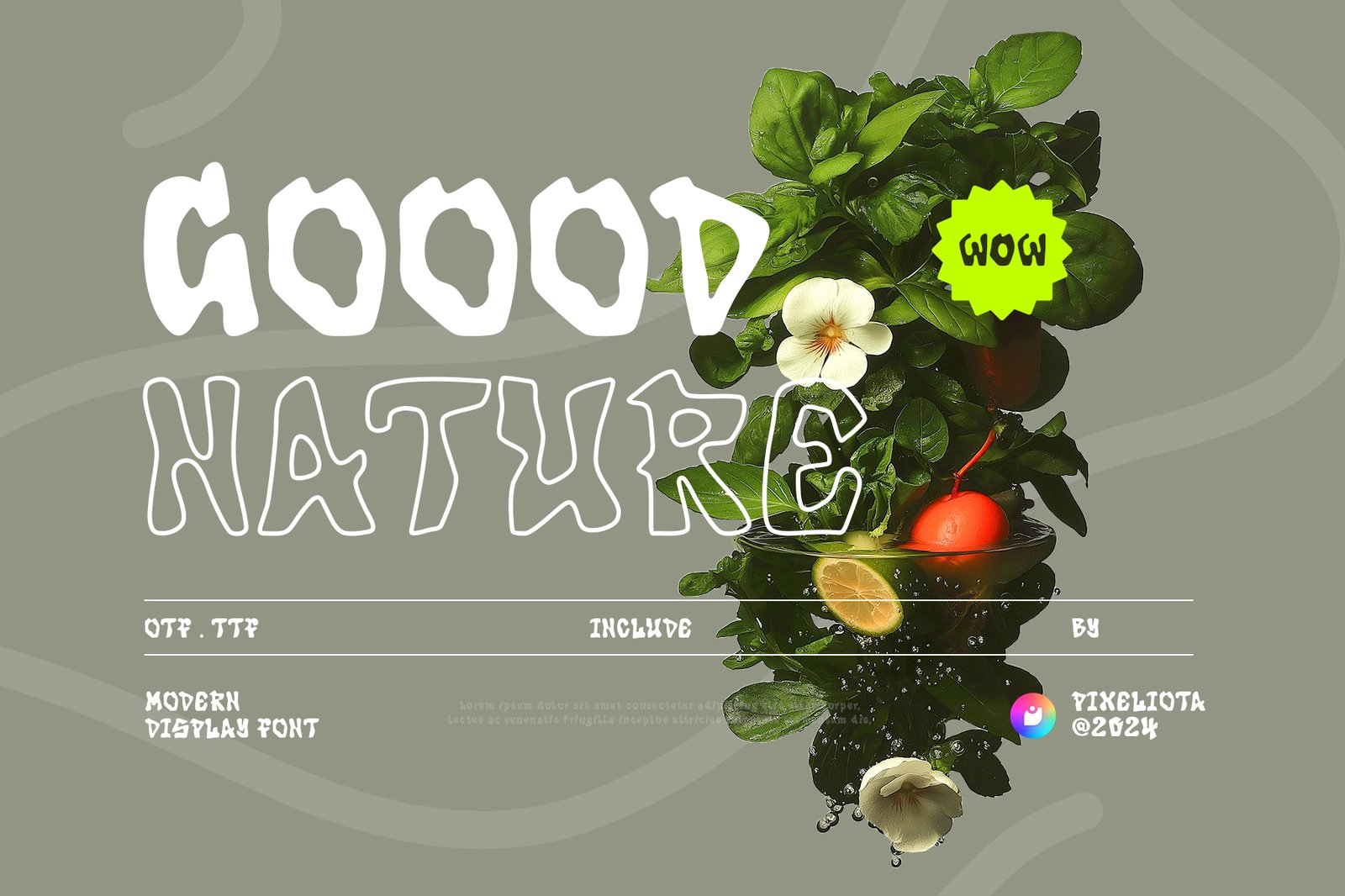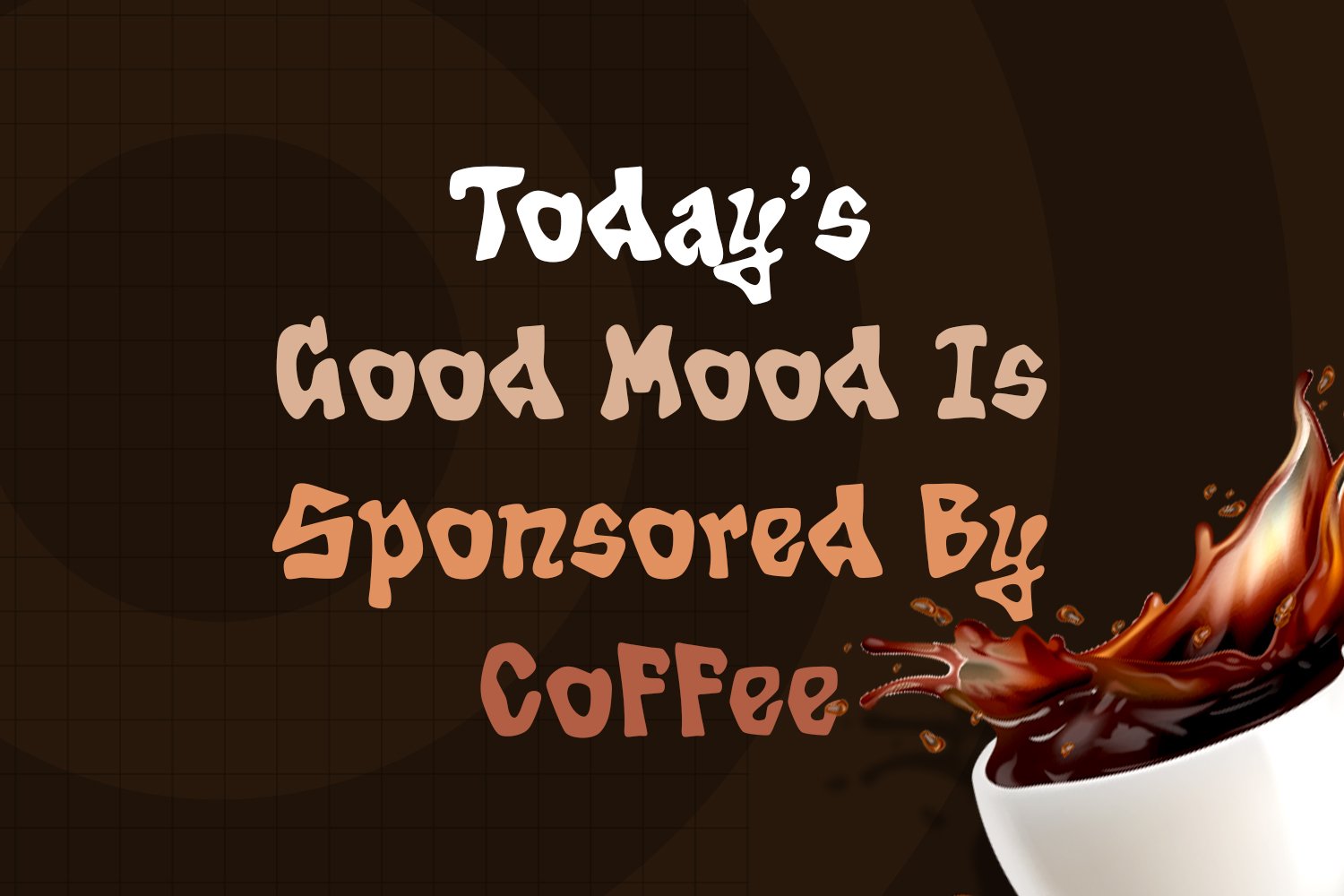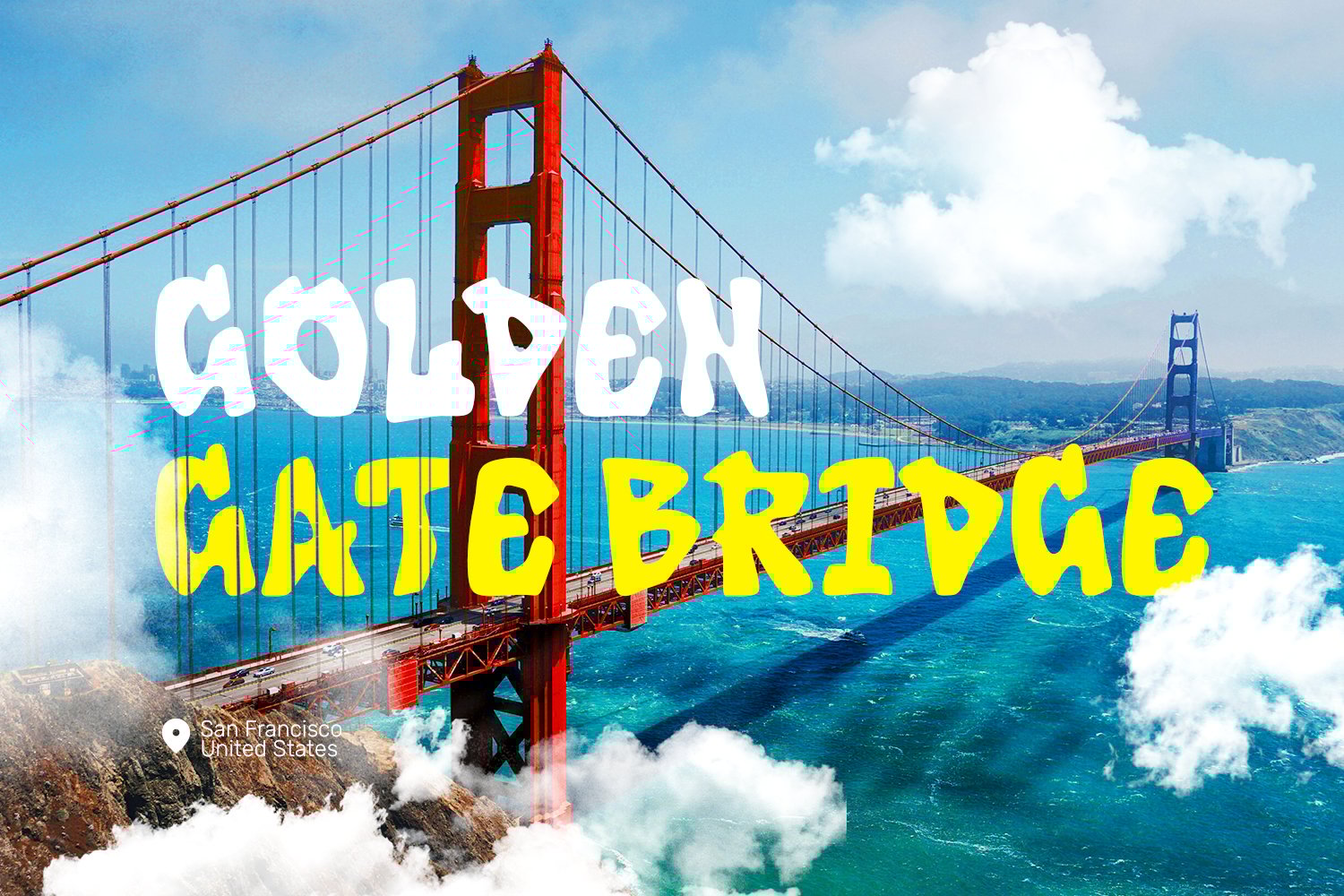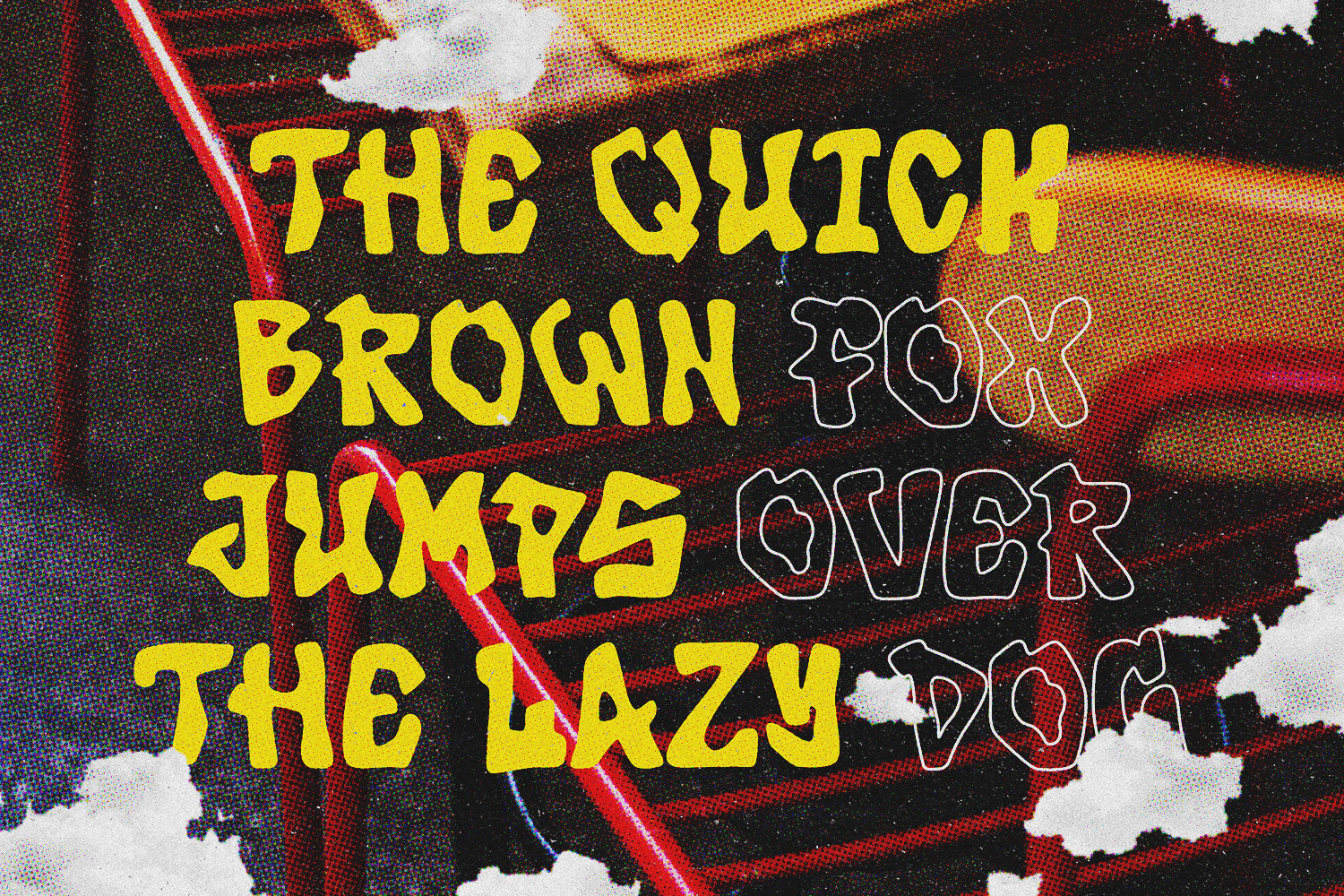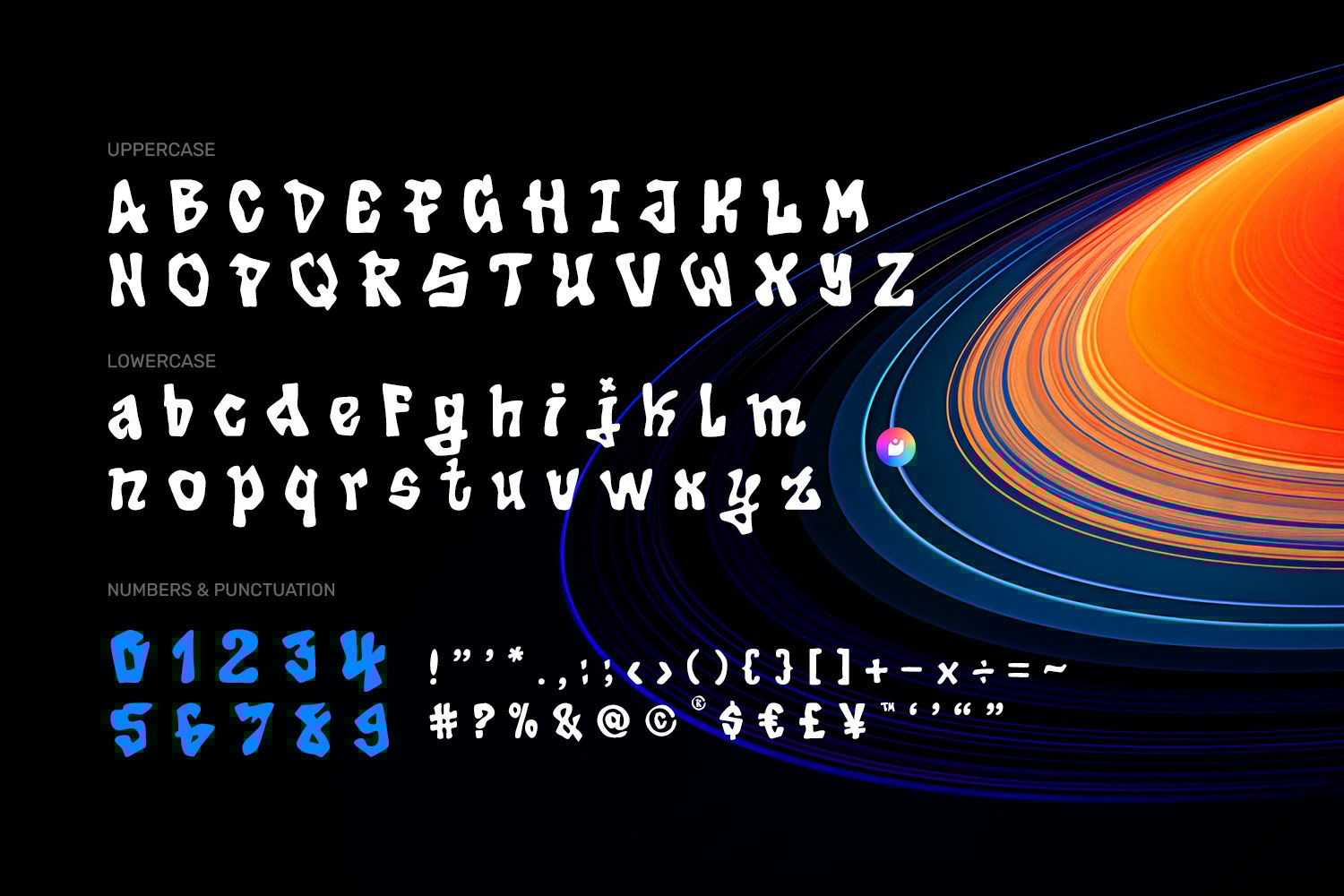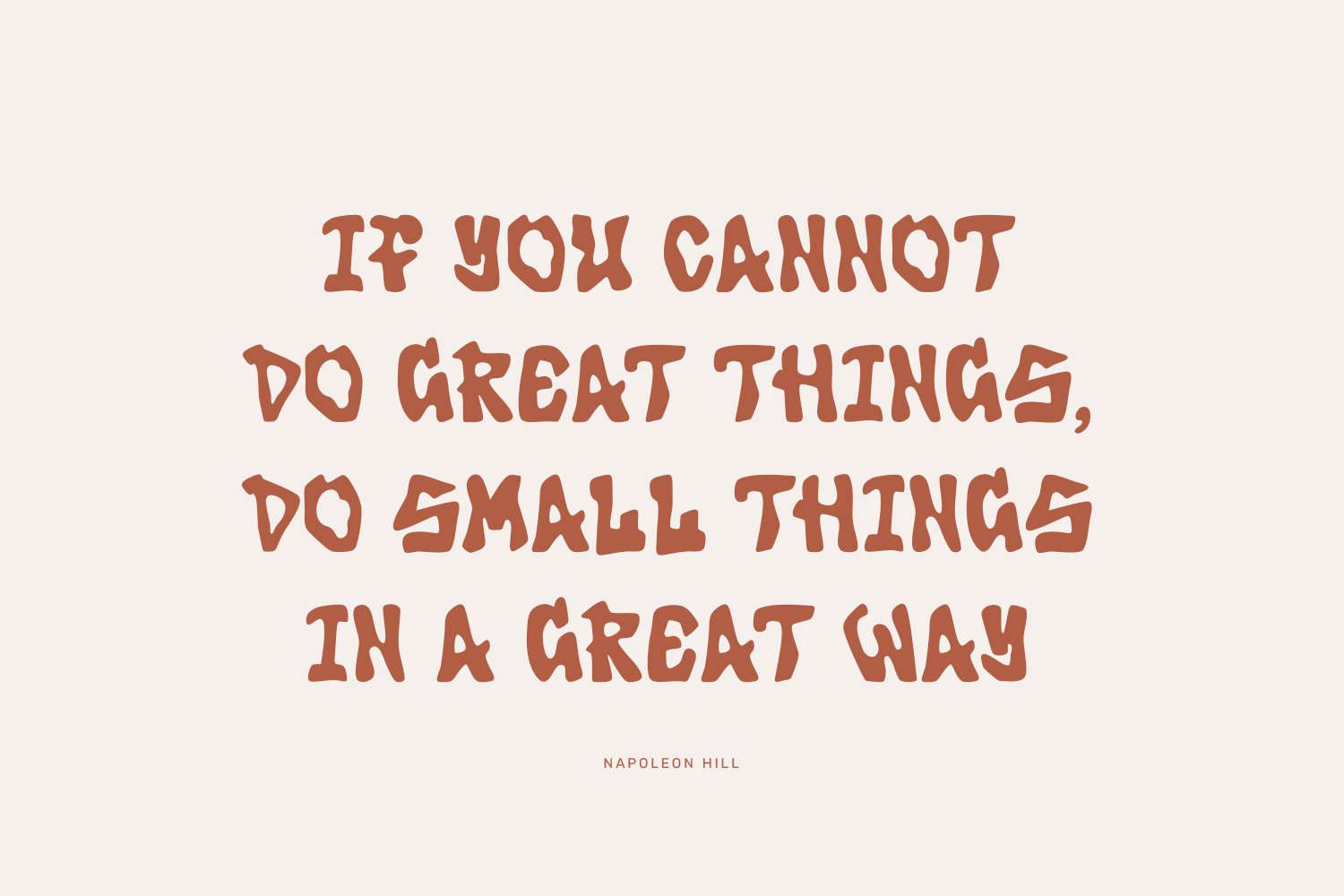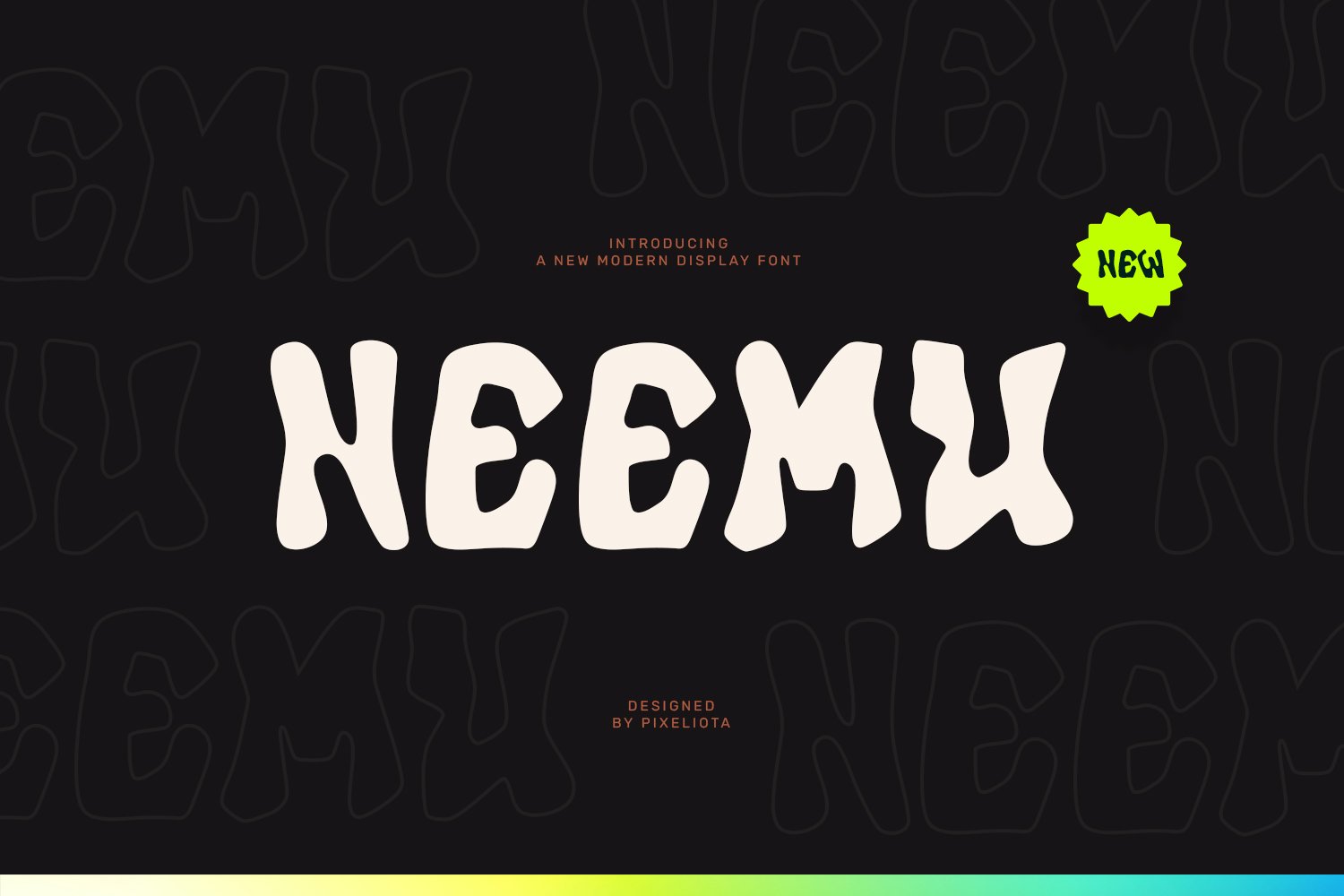
Neemu - Display Font
Proudly Present ✦ Neemu – Modern Display Font, Created By Pixeliota.
Neemu is a sleek and contemporary display font designed to make your designs stand out with style and confidence. Its modern lines and bold structure make it perfect for projects that demand attention and sophistication.